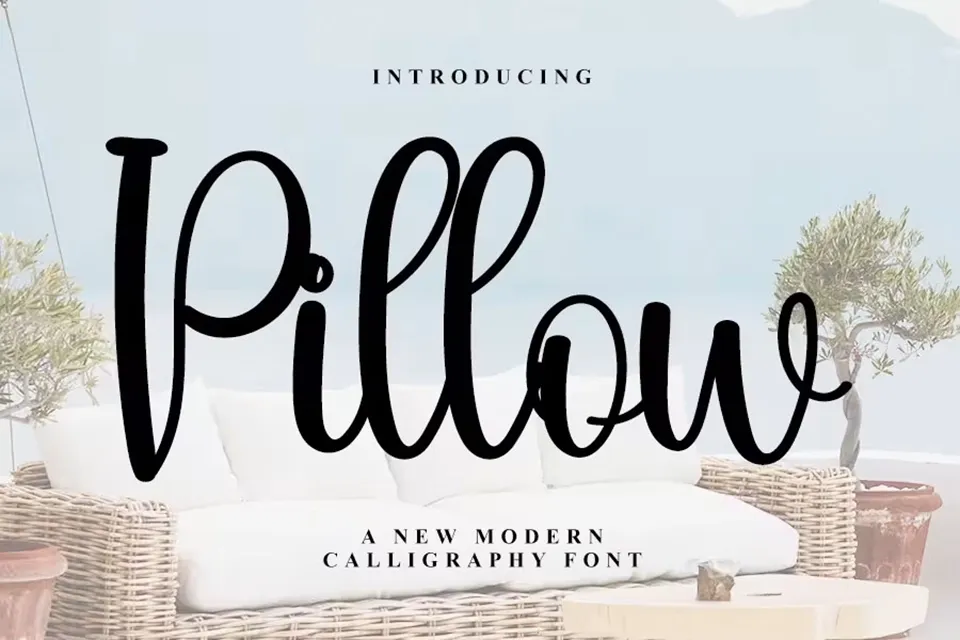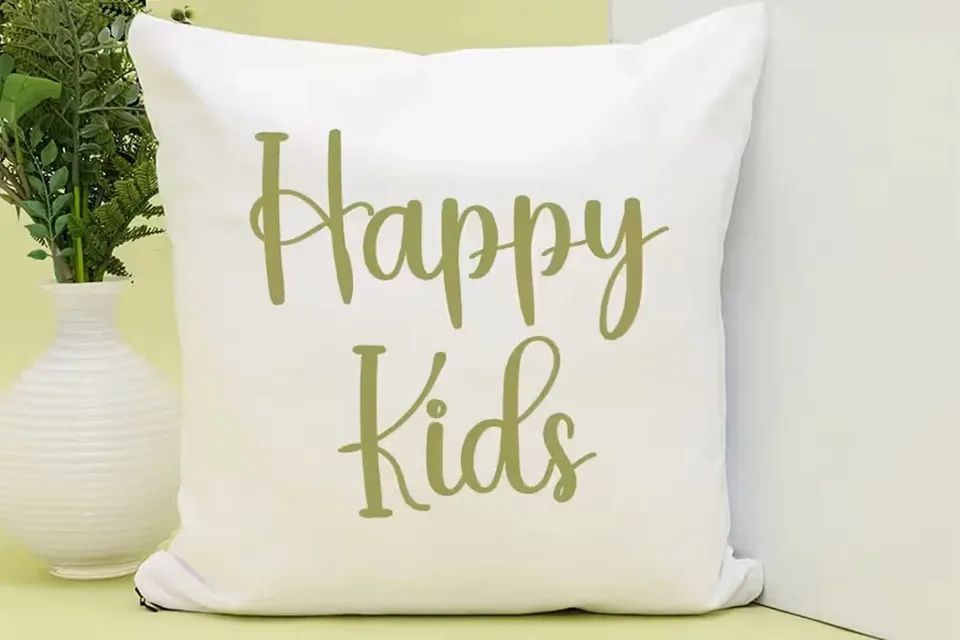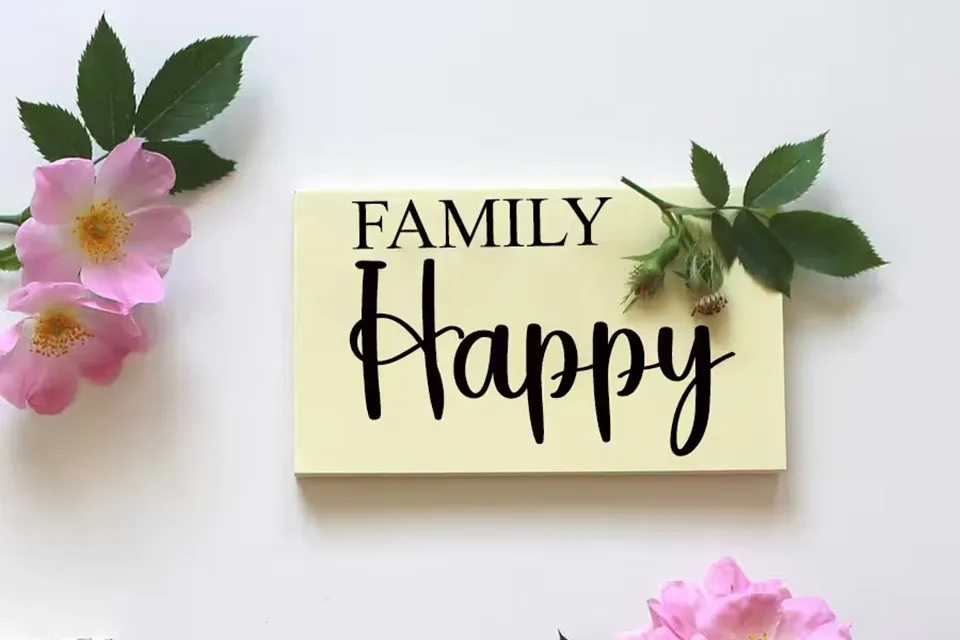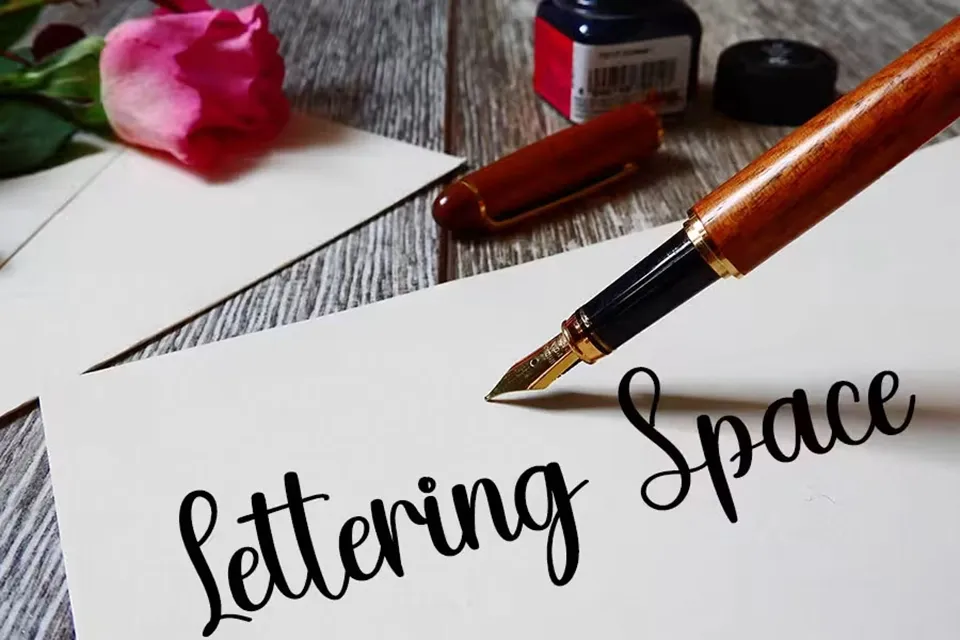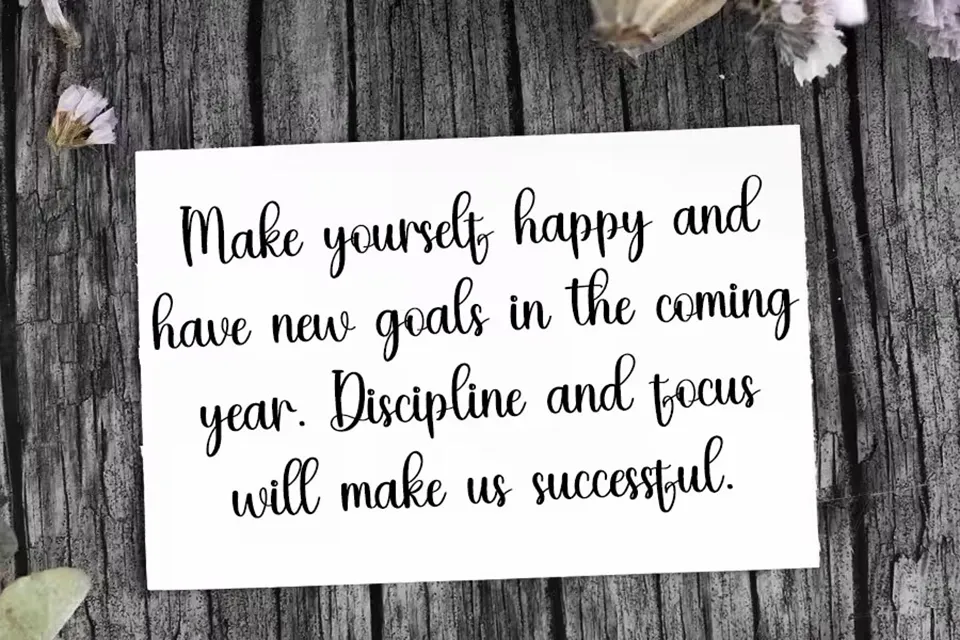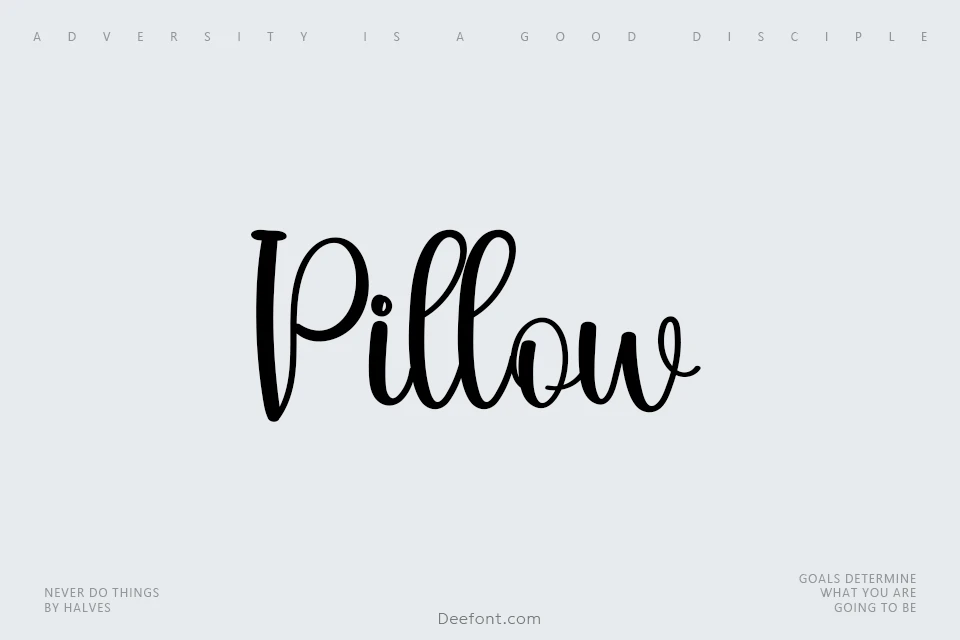
Pillow Font
Pillow Font is a relaxed and beautiful paint brush handwritten font, perfect for logos, wedding invitations, headings, t-shirts, letterheads, signage, labels, news, posters, badges, and more. Its modern calligraphy style adds a charming and personal touch to any creative project, making your typography stand out with elegance and warmth.